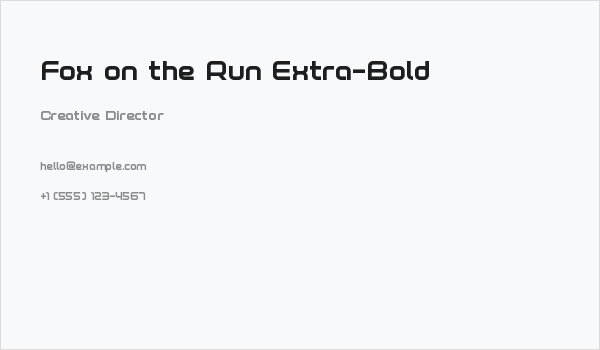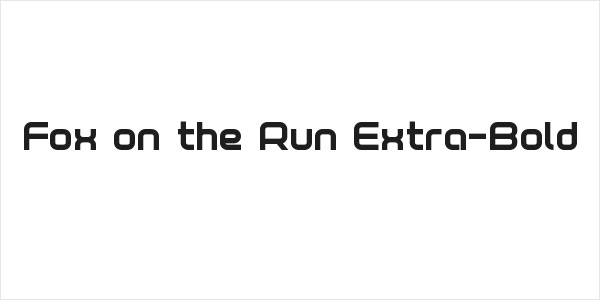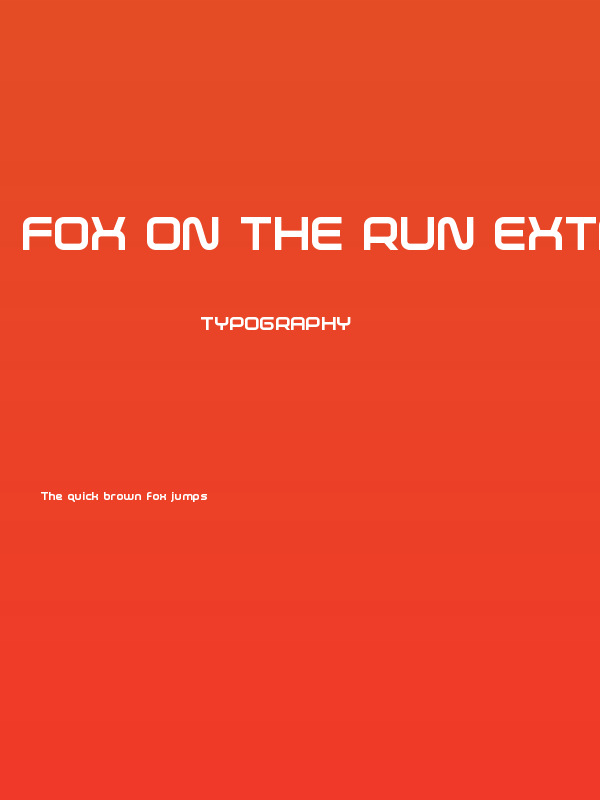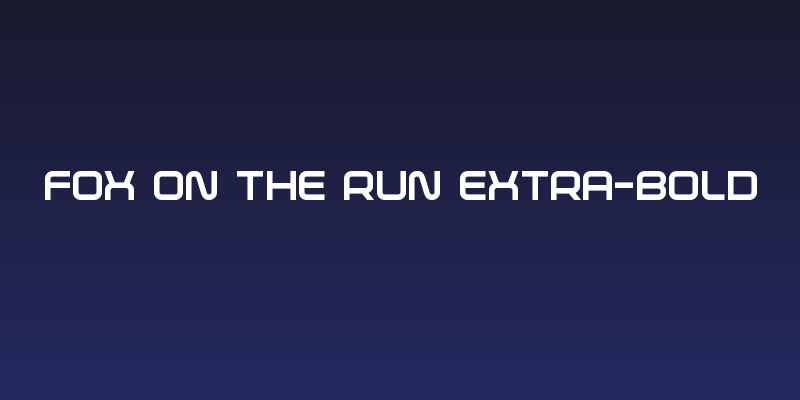
Fox on the Run Extra-Bold Font
Fox on the Run Extra-Bold Description
This font features a bold and modern design with rounded edges and a geometric structure. The uppercase and lowercase letters maintain a consistent height, creating a uniform appearance. The numerals are distinct and easy to read, with a similar rounded style. Special characters are well-integrated, maintaining the overall aesthetic. The font's clean lines and smooth curves give it a contemporary feel, making it suitable for various design applications.
| Proposed Projects | Ideal for branding, headlines, posters, and digital media where a modern and bold statement is needed. |